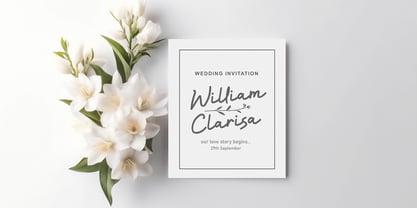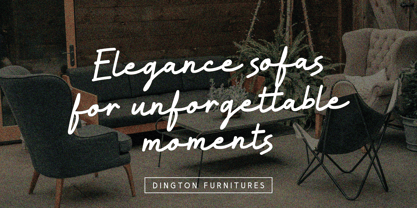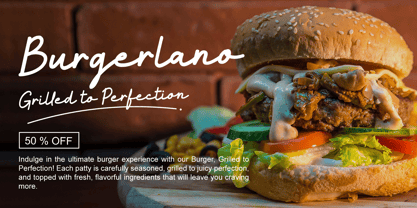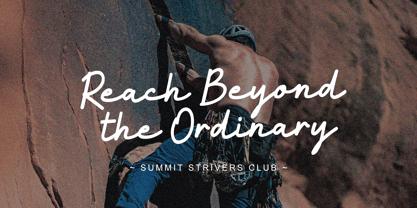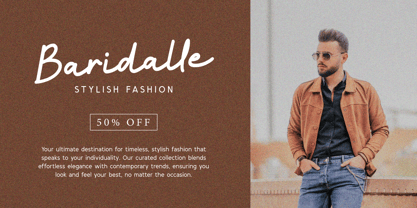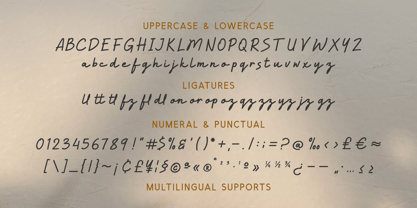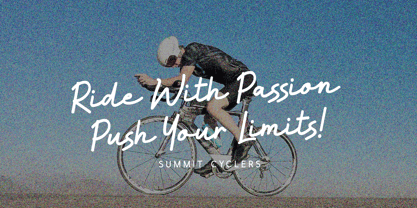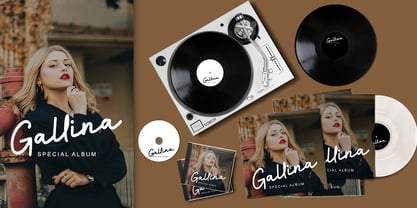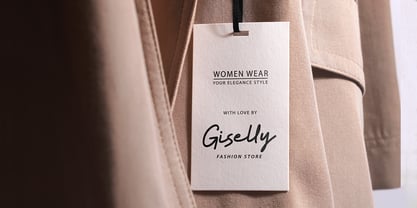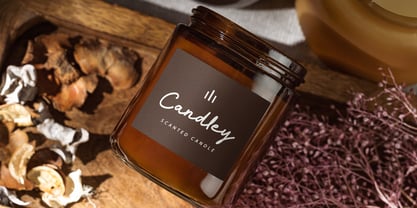
Alysa Beauty
by Syauqi Studio
The Alysa Beauty Font Family was designed by Muhammad Asroful Umam and published by Syauqi Studio. Alysa Beauty contains 1 styles.
Alysa Beauty – Elegant Casual Handwritten Font for Fashion, Lifestyle, and Creative Projects
Alysa Beauty is the perfect casual handwritten font that brings a unique blend of elegance and authenticity to any creative project. With its effortlessly flowing curves and natural strokes, this font is ideal for a wide range of applications, from fashion and cosmetics to weddings, lifestyle branding, F&B, and beyond. Whether you're designing a chic logo, stylish invitation, or eye-catching social media post, Alysa Beauty will elevate your project with a touch of refined personality.
Crafted to offer versatility without compromising on style, Alysa Beauty seamlessly combines the casual appeal of handwritten design with the sophistication needed for premium branding. It’s perfect for creative entrepreneurs looking to make a lasting impression. The smooth flow of this font is designed to convey elegance while still maintaining an approachable, down-to-earth vibe.
Whether you're designing for a trendy beauty brand, a cozy café, or a luxurious fashion boutique, Alysa Beauty has the flexibility to complement your creative vision. Stand out in the crowded marketplace with a font that captures both attention and heart.
Why Choose Alysa Beauty?
• Elegant, yet casual handwritten style.
• Perfect for fashion, beauty, weddings, lifestyle, and F&B industries.
• Adds a personal touch to logos, branding, and web design.
• Versatile for a wide range of creative projects, from invitations to advertisements.
• Easy-to-read with a friendly and professional appeal.
Bring Your Designs to Life with Alysa Beauty – the Font that Speaks to Your Audience.